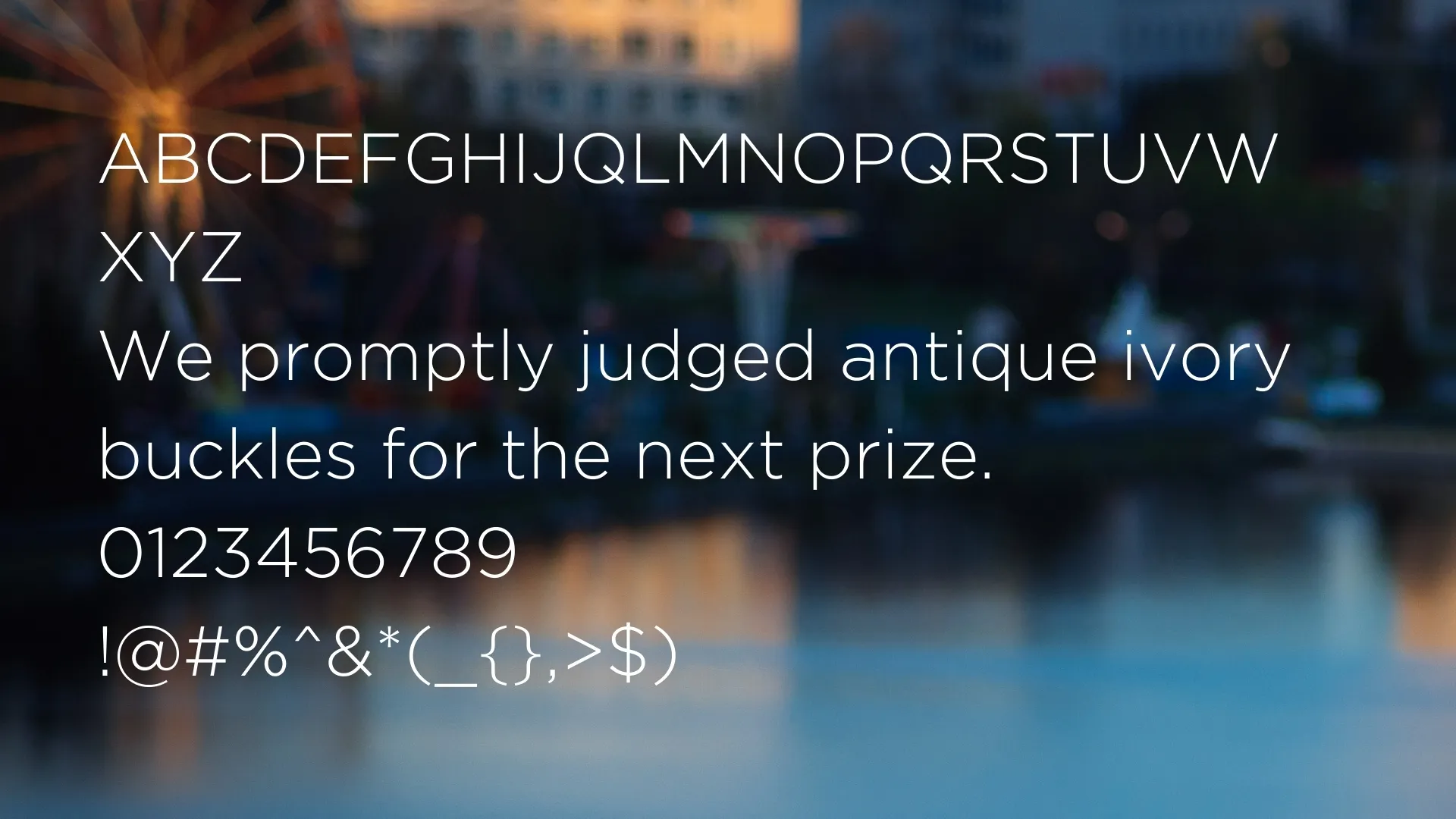
Gotham Font is a member of the Sans-Serif Font Family. This typeface has a neat and defined texture style that is legible for both small and big-size screen displays. This font style is also available in Adobe and Microsoft Word. This textured style has been used in the posters of Obama’s campaigns in 2008.
But in our research, gotham medium font and Raleway Font have the most similar personalities with this font. So, you can use this font as a replacement for those typefaces. It has the perfect display texture style that can be utilized for headings, headlines, book titles, banners, posters, invitation cards, etc.
| Designer | Tobias Frere-Jones |
It can support up to 84 languages.